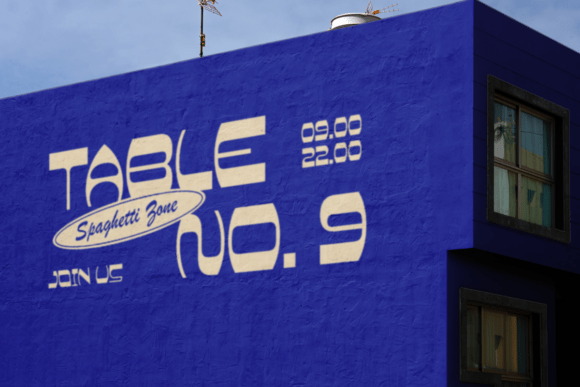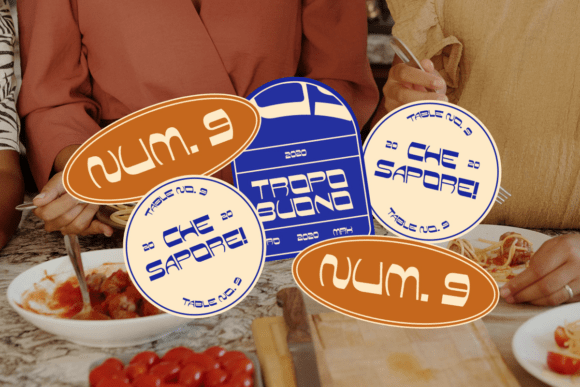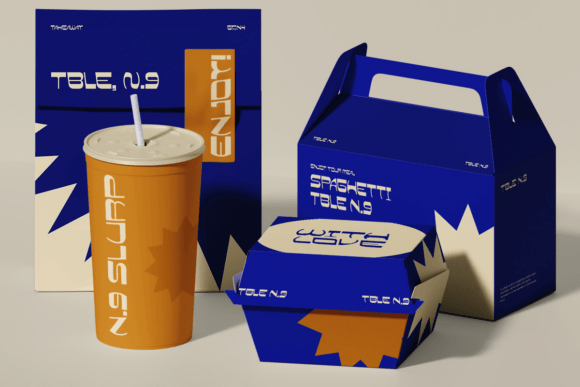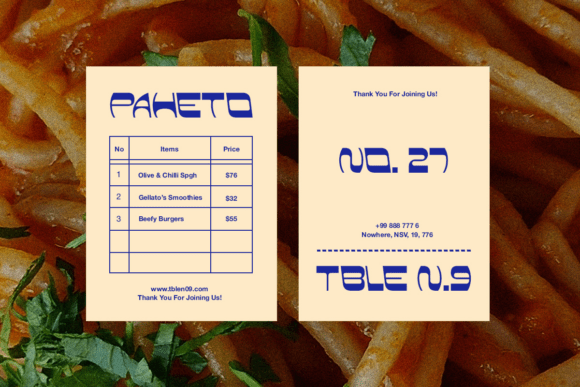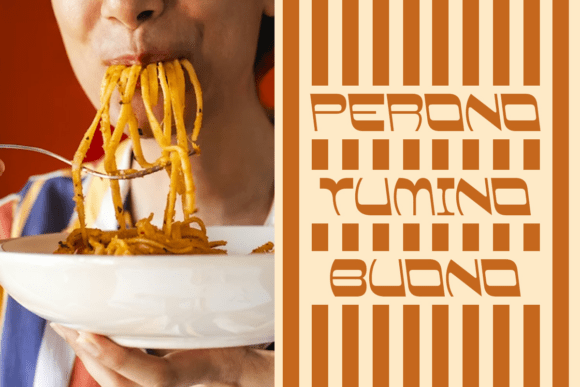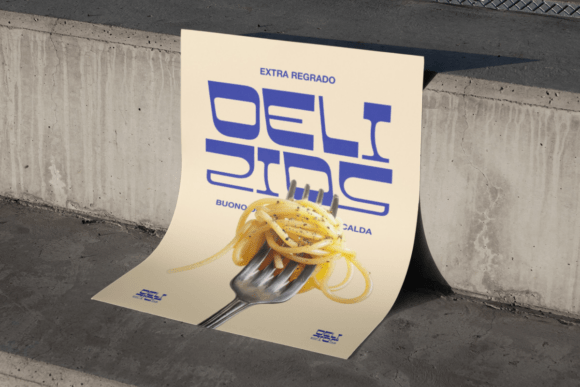
Introduction to Paheto Font Font
Fonts play a crucial role in design, and the Paheto Font font is a typeface that brings both character and versatility to any project. Whether you’re working on a branding project, a website, or a print design, the Paheto Font font offers a unique style that can elevate your work.
Paheto is a nostalgic restaurant display font inspired by classic Italian eateries, vintage menus, and retro food packaging.
With its bold geometric shapes, rounded corners, and slightly futuristicβretro touch, Paheto delivers a strong yet friendly character that feels both old-school and modern The single Regular style is crafted to stay clean, readable, and impactful across various food branding applications.
The Paheto Font font is more than just a typeface β it’s a design tool that helps you communicate your message with style and clarity. Its unique character set and versatile design make it suitable for a wide range of applications, from elegant invitations to bold headlines.
With its carefully crafted letterforms and balanced proportions, the Paheto Font font ensures readability and visual appeal across all mediums.
The Paheto Font font stands out with its unique design, exceptional readability, and versatility across various design applications.